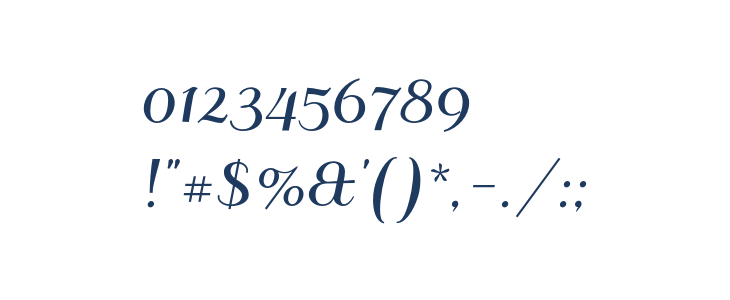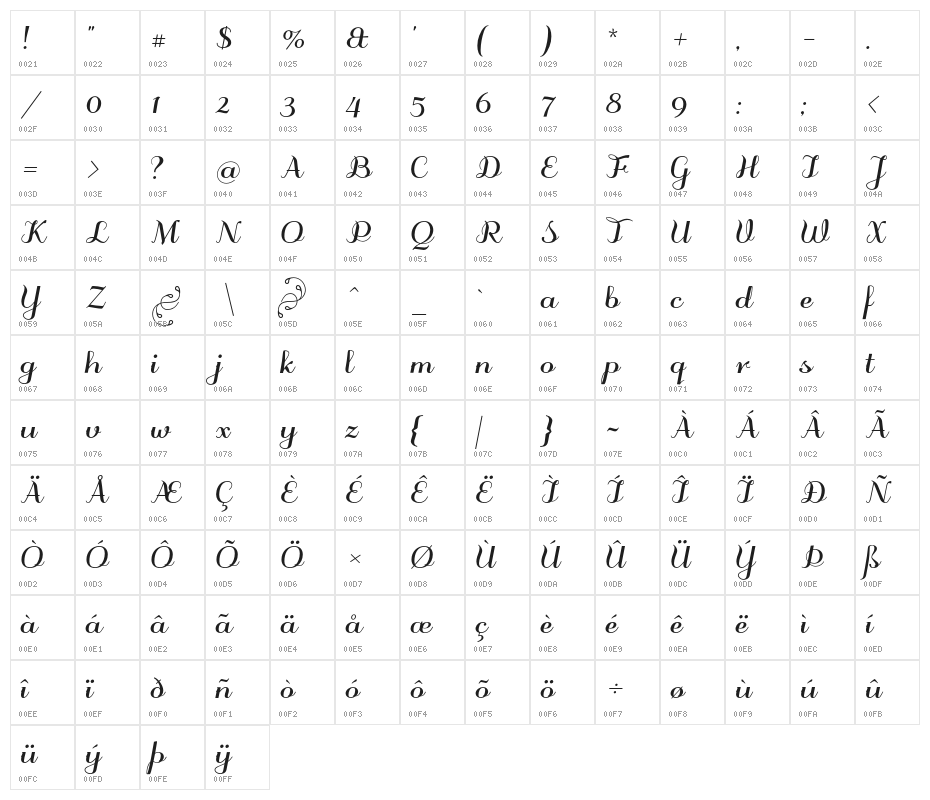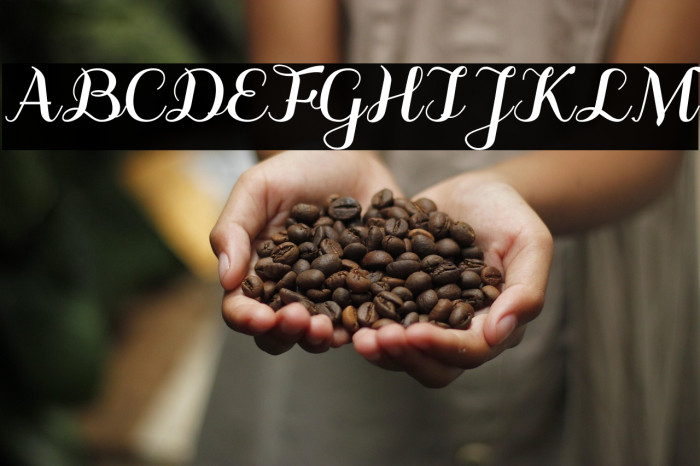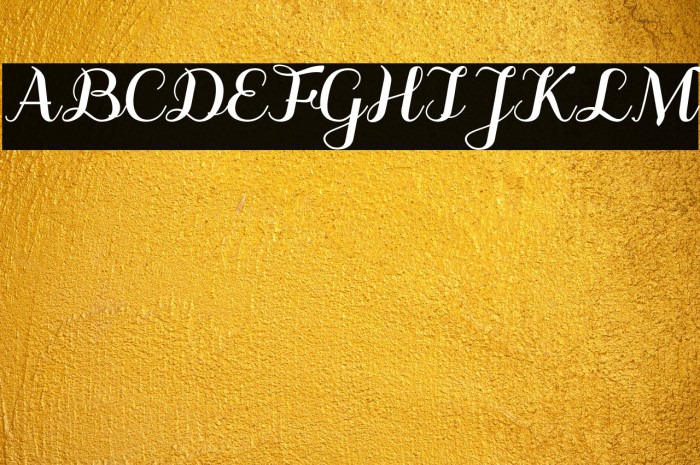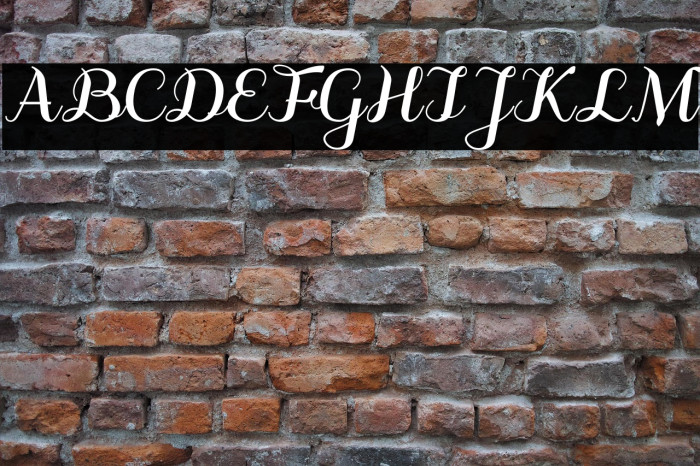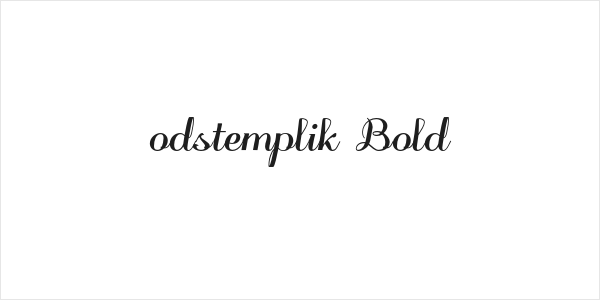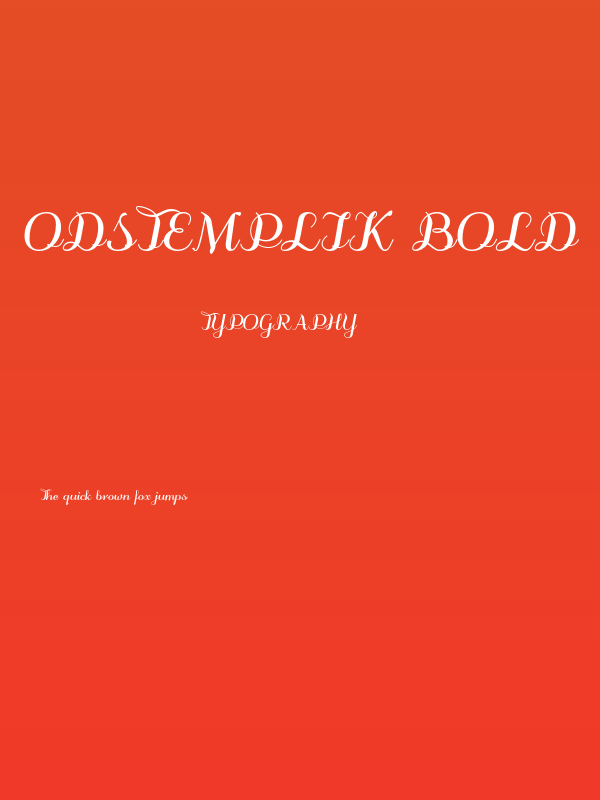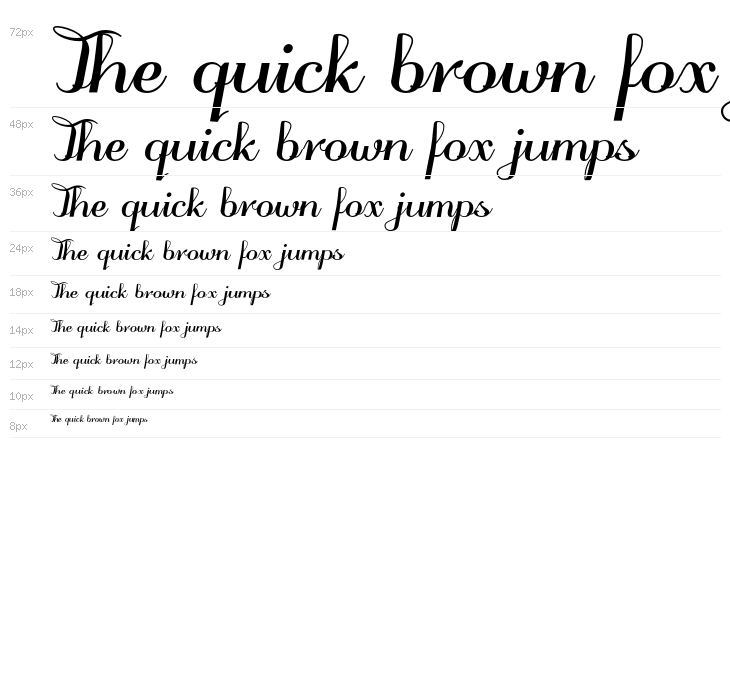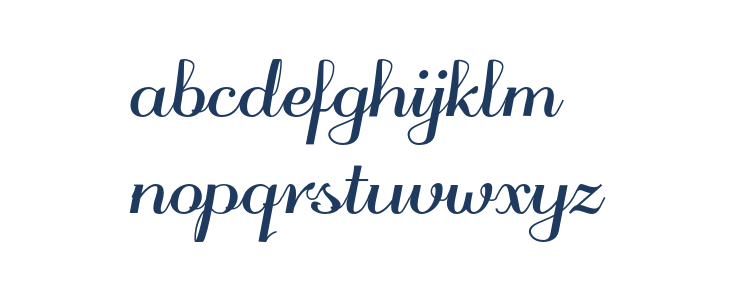
odstemplik Bold Font
odstemplik Bold Description
This elegant script font features flowing, interconnected characters that exude a sense of sophistication and grace. The uppercase letters are adorned with delicate flourishes, while the lowercase letters maintain a smooth, cursive style. The numerals are stylishly designed to complement the overall aesthetic, and the special characters are crafted with the same attention to detail. The font's strokes vary in thickness, providing a dynamic contrast that enhances readability while maintaining its decorative appeal. Ideal for projects that require a touch of elegance and refinement.
| Proposed Projects | Wedding invitations, luxury branding, elegant stationery, and high-end product packaging. |